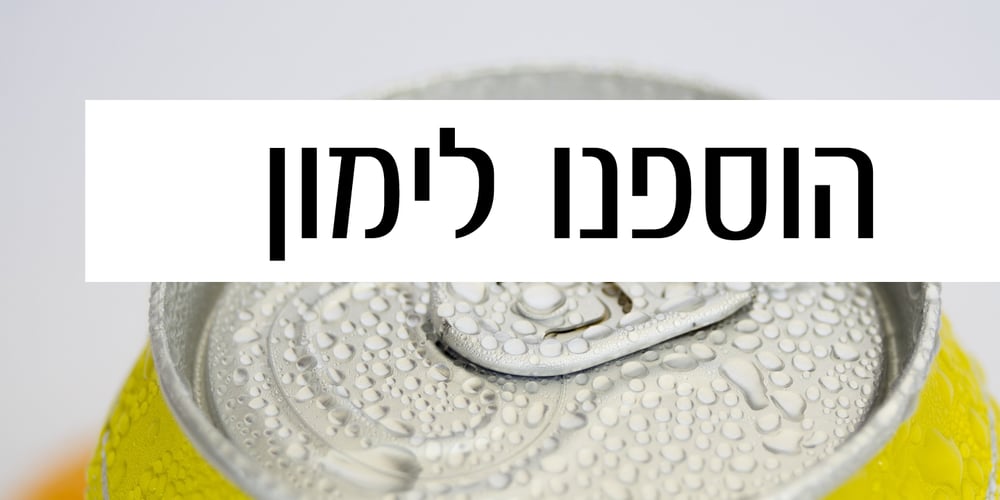
Zanav Kashiach MF
Zanav Kashiach MF font
Zanav Kashiach MF Font Family was designed by Zvika Rosenberg and published by Masterfont. Zanav Kashiach MF contains 5 styles and family package options. High contrast and practical font family with 3 weights for all your needs: headlines, body text, signage etc. High legibility at small sizes.